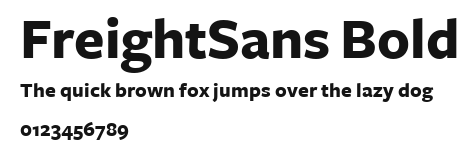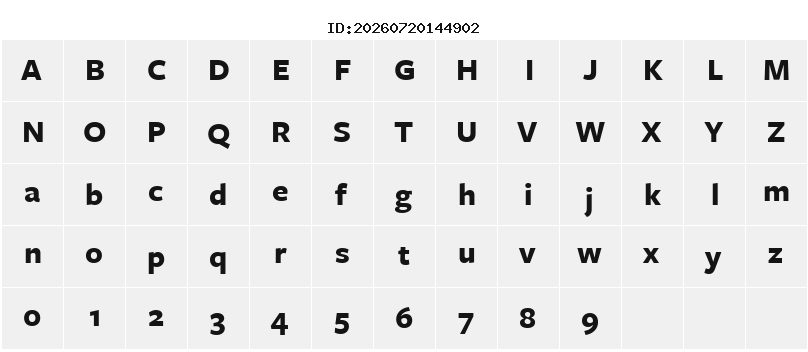
• Font Name: FreightSans Bold
• Designer: Joshua Darden
• Manufacturer: Joshua Darden & Phil's Fonts, Inc
About FreightSans Bold.ttf
FreightSans Bold.ttf is a modern, elegant sans-serif font designed for ultimate readability and visual harmony. Perfect for branding, headlines, web design, and print materials.